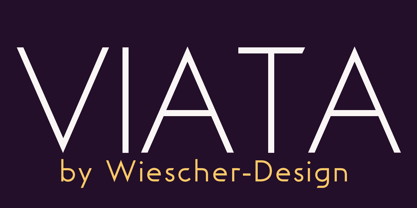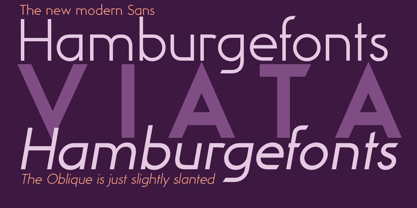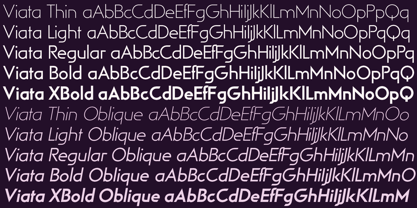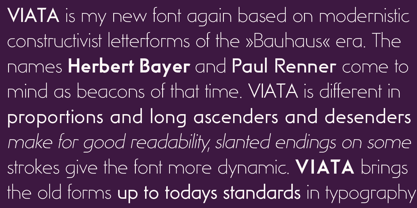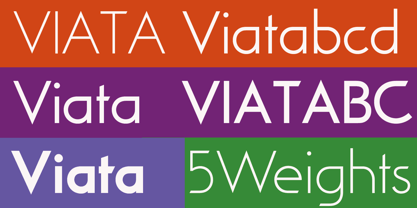
Viata Font
Viata Font is perfect for branding, website headings, social media graphics, poster designs, and editorial layouts. Its modern, clean, and versatile design makes it ideal for a wide range of creative projects.
What makes Viata Font exciting is its geometric, well-structured letterforms that combine readability with a contemporary and stylish aesthetic. The font’s design ensures your text stands out with clarity and sophistication.
The Viata Font family includes Regular, Bold, Italic, and Light variations, providing designers flexibility to create cohesive and visually appealing typographic compositions.